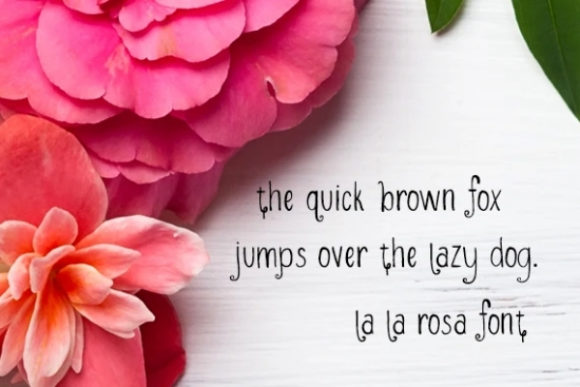
LaLaRosa Font
About LaLaRosa Font
LaLaRosa is a cute handwritten font. It features amazing and diverse swashes. Fall in love with its authentic feel and use it to create gorgeous wedding invitations, beautiful stationary art, eye-catching social media posts, and cute greeting cards.